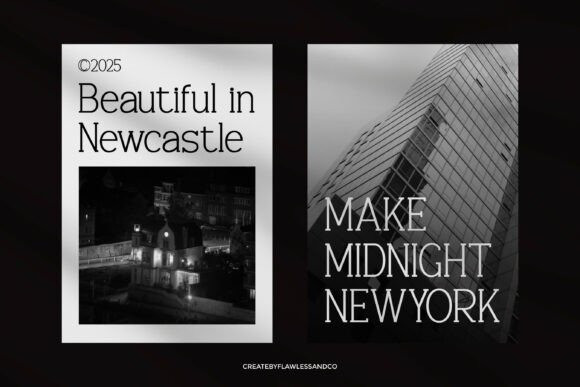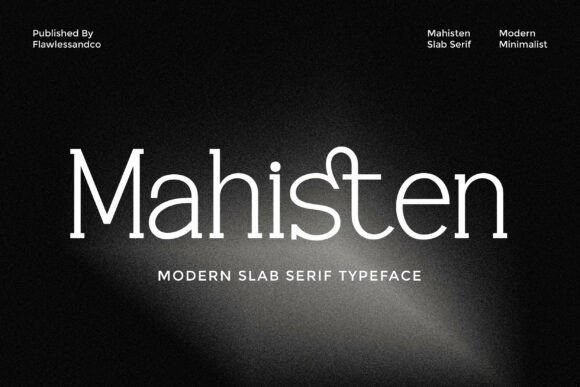
Mahisten Font
Mahisten Font is a modern slab serif typeface designed with a refined balance between minimalism and sophistication. Its strong geometric structure is paired with subtle curves, creating a timeless and versatile character. Mahisten brings a sense of confidence and clarity to any design, making it ideal for professional and contemporary branding.